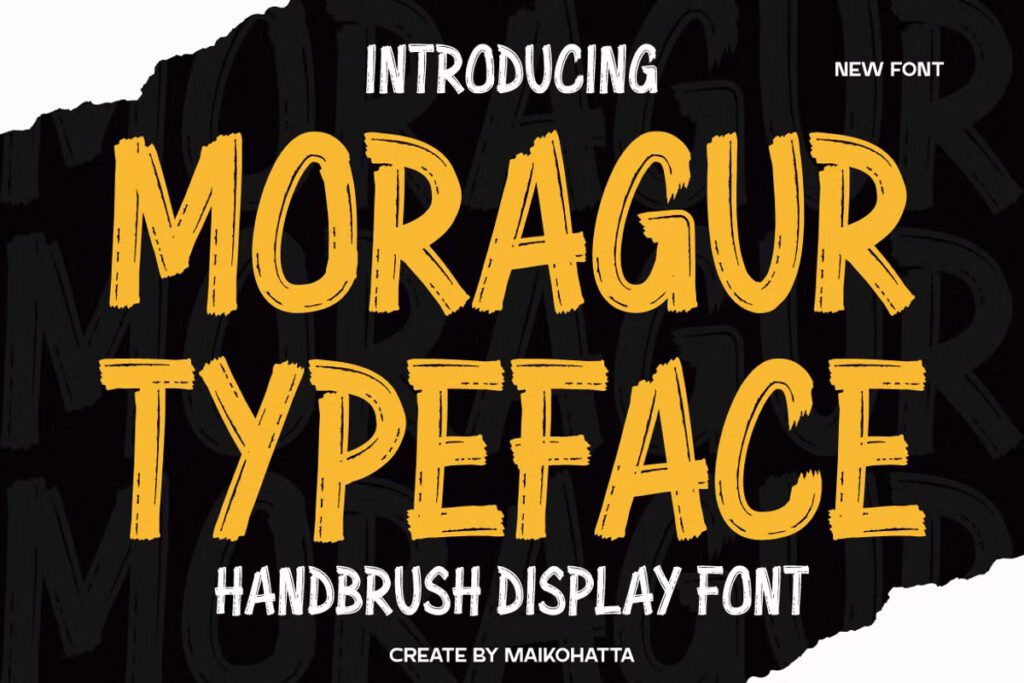
Moragur – Bold Handbrush Display Font for Creative Designs
Unleash your creativity with Moragur, a dynamic handbrush display font that brings raw energy and artistic flair to your projects. Created for designers who want to make a bold statement, Moragur’s bold strokes and expressive style make it a must-have for standout designs.
Why Choose Moragur?
Bold Handbrush Style:Moragur’s brushstroke-inspired letterforms exude energy and creativity. It’s perfect for adding an authentic hand-drawn feel to your typography, giving it a fresh and lively appearance.
Ideal for Various Creative Projects:Moragur works brilliantly for a variety of design uses, including branding, posters, apparel, and merchandise. Its bold style ensures your text doesn’t just stand out—it commands attention.
Perfect for Artistic Projects:From album covers to social media graphics, Moragur adds a bold, handcrafted touch to any creative project.
Features of Moragur
Handbrush Letterforms: Inspired by natural brushstrokes for a vibrant, artistic feel.
Uppercase & Lowercase Characters: For versatility in typography.
Multilingual Support: Works across various languages, perfect for global projects.
Punctuation & Numerals: A full range of characters for diverse design needs.
Ideal Uses for Moragur
Posters & Album Covers: Moragur’s bold style makes it the perfect choice for high-impact designs like event posters and album art.
Branding & Logos: Add a personal, artistic touch to your brand identity with this unique font.
Creative Merchandise: From apparel to accessories, Moragur brings a hand-drawn, bold style to your products.